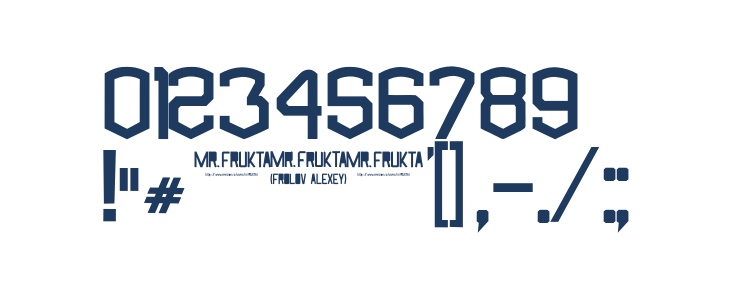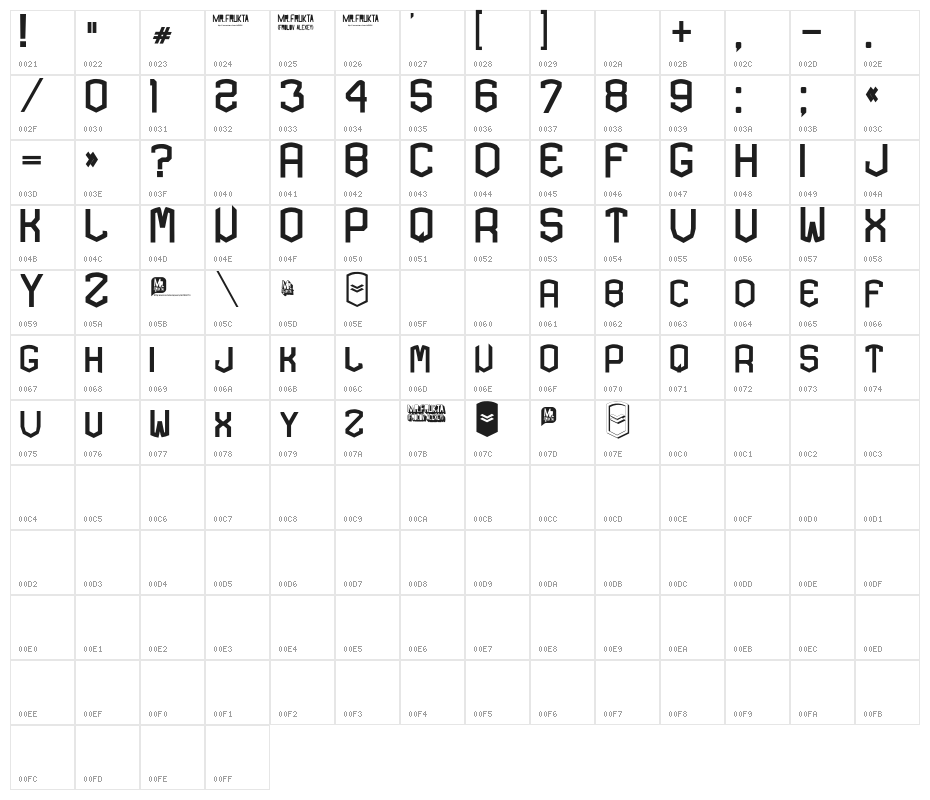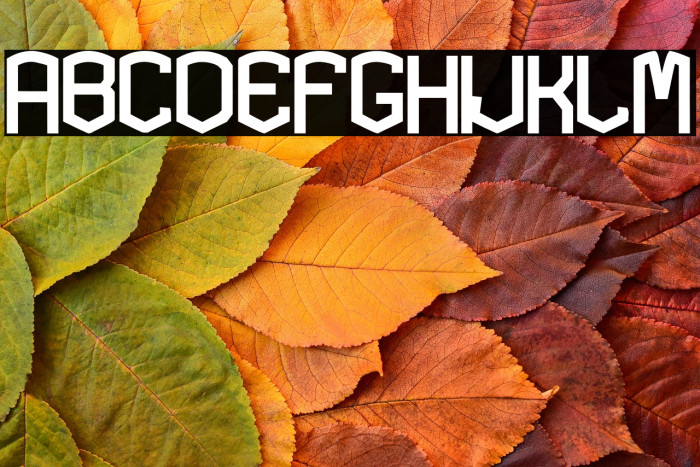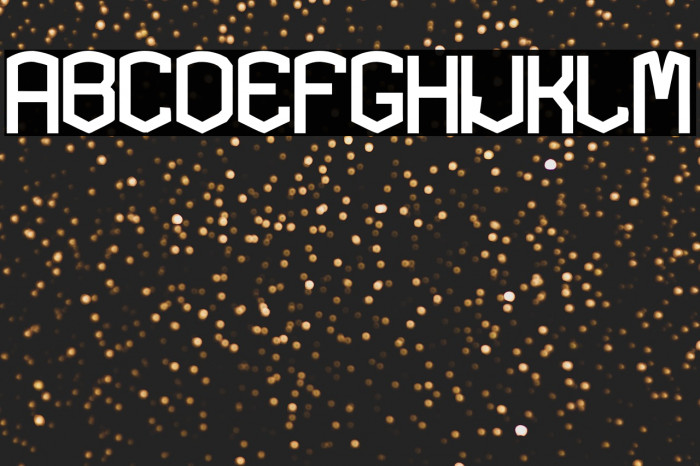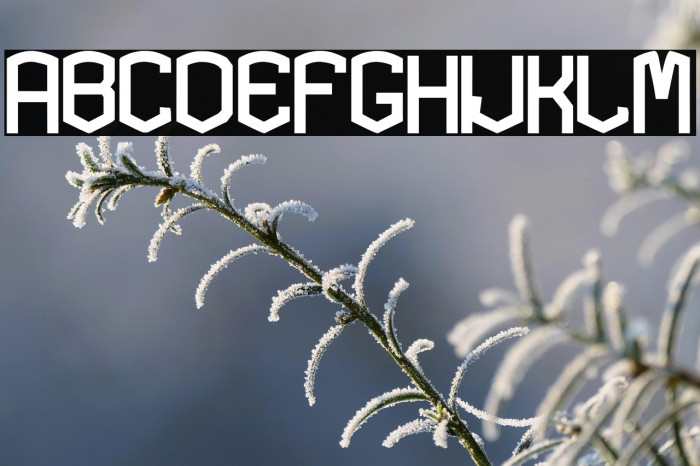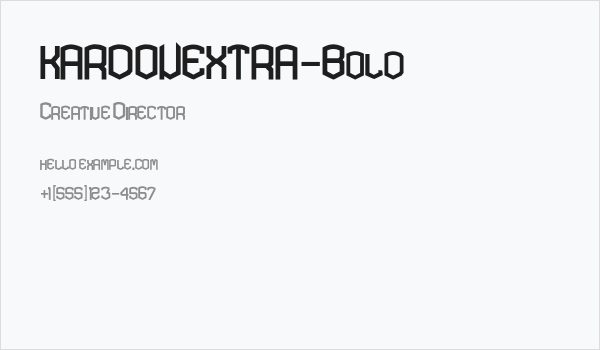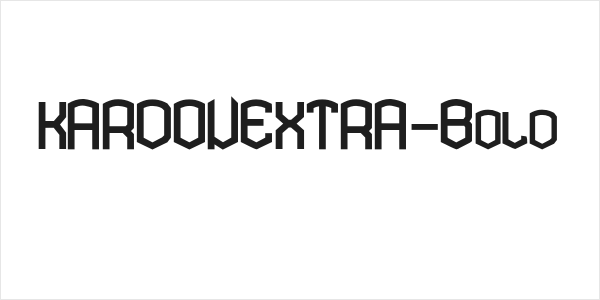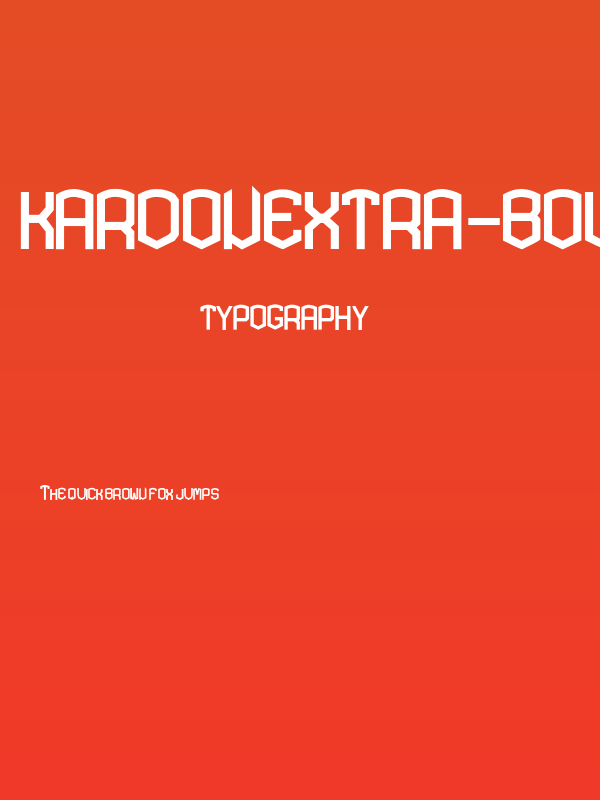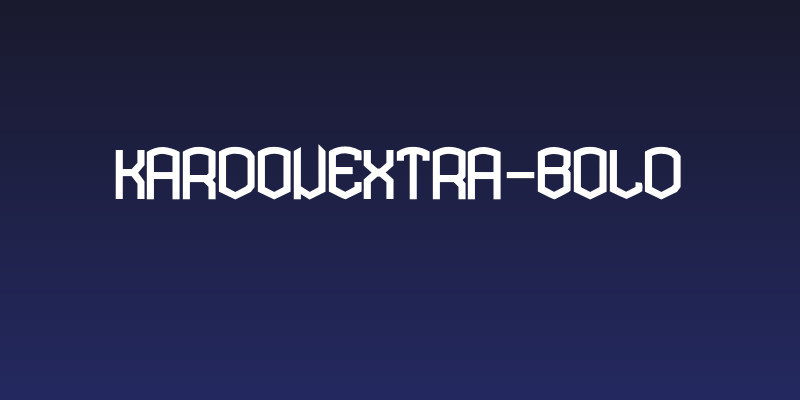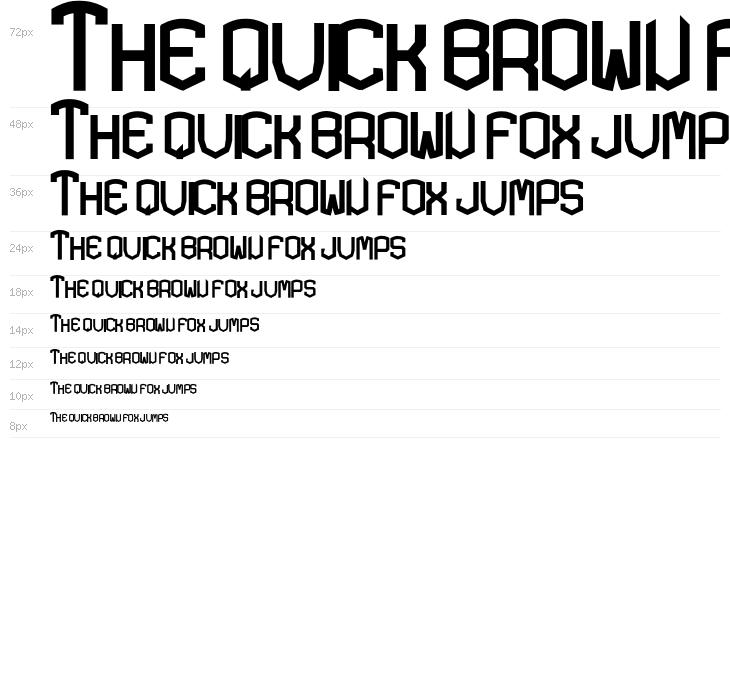
KARDONEXTRA-Bold Font
KARDONEXTRA-Bold Description
This font features a bold and geometric design, characterized by its angular and blocky letterforms. The uppercase and lowercase letters maintain a consistent style, with sharp edges and a modern aesthetic. The numerals and special characters follow the same design principles, ensuring uniformity across all glyphs. This font's strong presence and unique style make it suitable for attention-grabbing headlines and display purposes. The overall design is both futuristic and industrial, with a distinctive edge that sets it apart from more traditional typefaces.